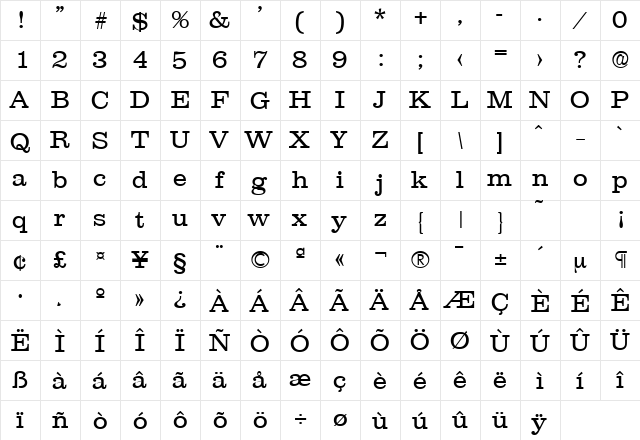
Clarendon-Serial-Light Regular
Design Context for Clarendon-Serial-Light Typeface
Clarendon-Serial-Light features prominent, blocky serifs that give it a confident, grounded presence — equally at home in editorial settings and bold branding work. Its slender proportions lend an understated elegance to any composition.
Suited to magazines, political campaign materials, bold packaging, and any setting where authority matters.
Pro Tip: Use Clarendon-Serial-Light for headlines and subheadings where its slab serifs can make an impression. It also holds up well in mid-size body copy thanks to its sturdy construction.